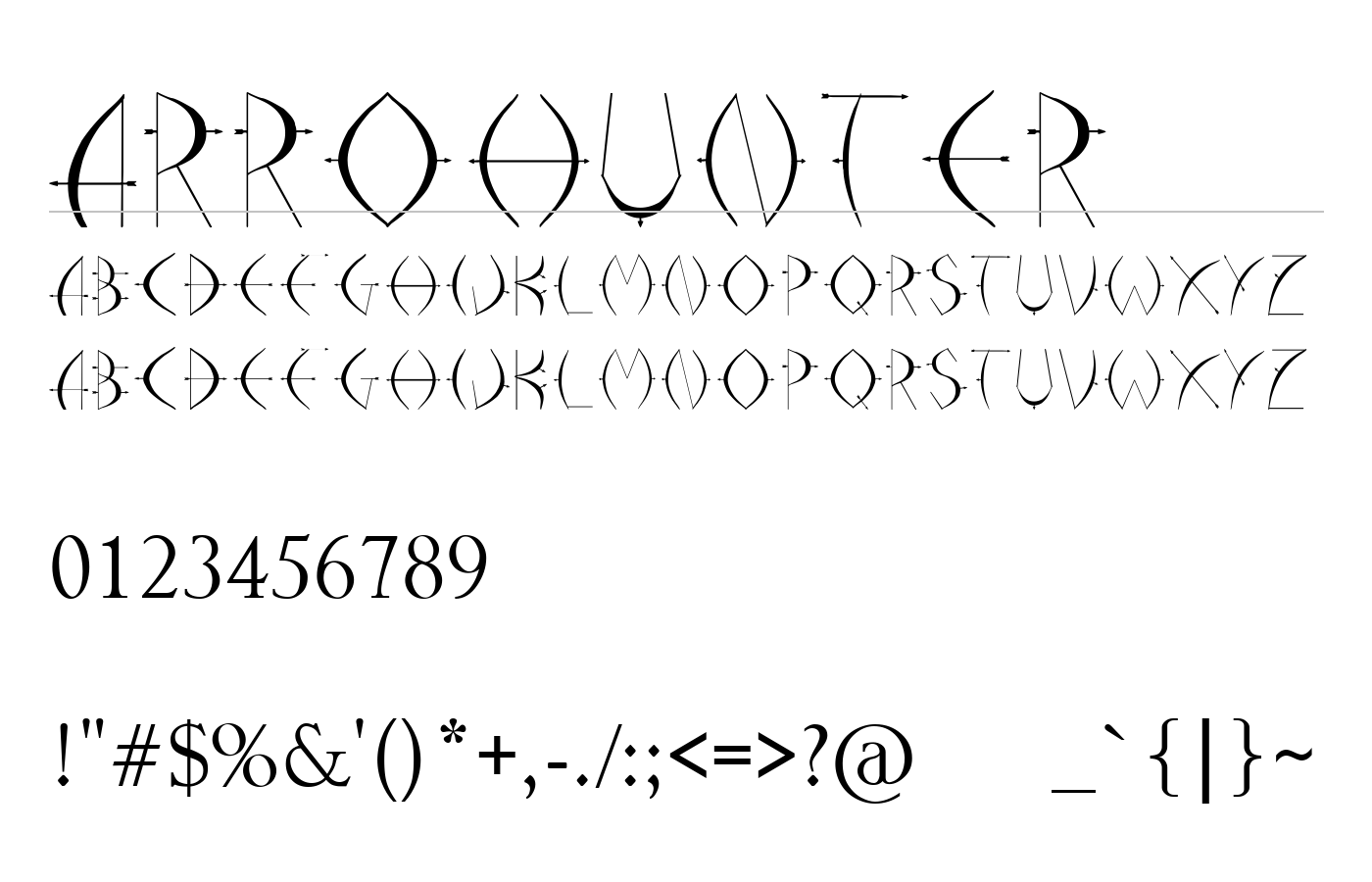
Arrohunter is a unique serif font characterized by its slender and delicate strokes combined with sharp, geometric outlines that create a futuristic yet elegant vibe. Its high contrast between thick and thin lines, along with distinctive letterforms and restrained spacing, makes it ideal for stylish headlines, logos, and editorial design where a modern and artistic touch is desired. This font stands out for projects seeking a sophisticated, avant-garde look with a hint of mystery and refinement.
arrohunter Font
About arrohunter Font